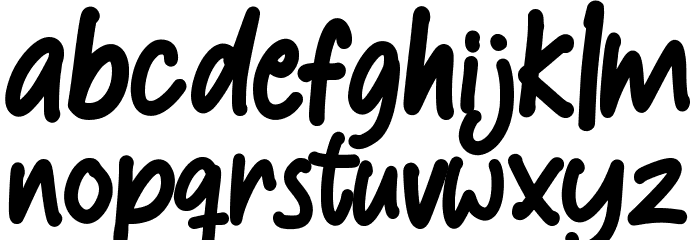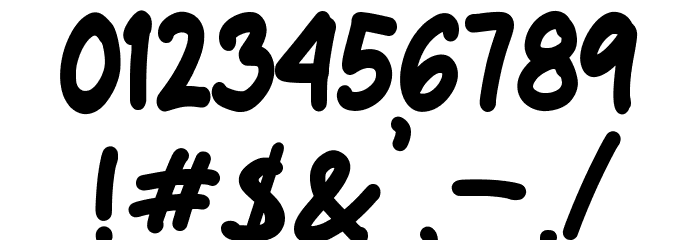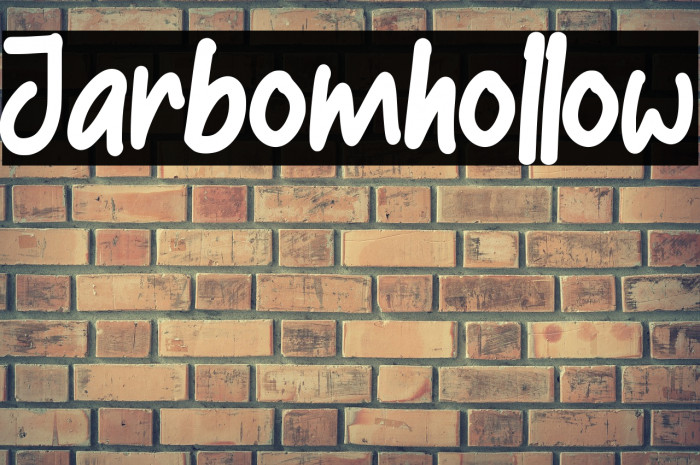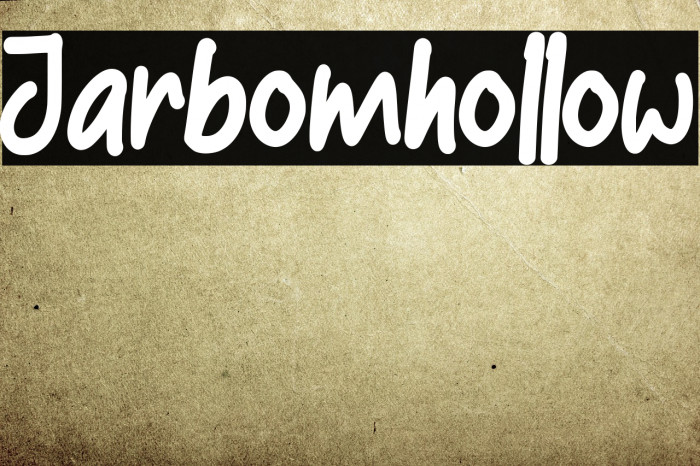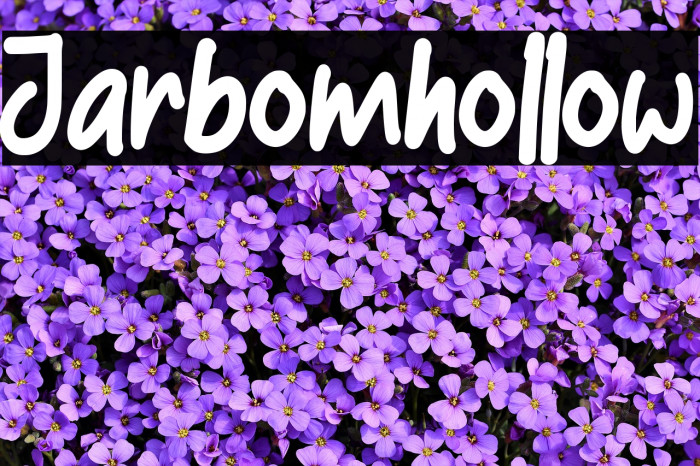
Jarbomhollow Font
This font features a bold and playful handwritten style, characterized by its smooth, flowing curves and slightly irregular shapes that give it a casual and friendly appearance. The letters are well-rounded and maintain a consistent thickness throughout, contributing to its legibility and charm. The uppercase and lowercase letters are distinct yet harmonize well together, while the numerals and special characters maintain the same lively and approachable aesthetic. This font's energetic and informal style makes it suitable for projects that aim to convey warmth and approachability.
A bold, playful handwritten font with smooth curves and a casual style.
- Proposed Projects: Ideal for greeting cards, children's books, playful branding, and social media graphics.
- Overall Style: Playful, Casual
- Use Case: Logos, Headlines, Informal Text